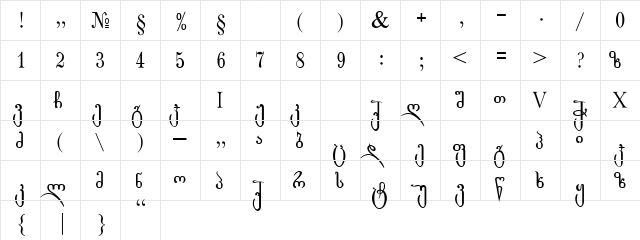
Rustaveli Nusx Normal
Rustaveli Nusx takes a measured approach to typography — its balanced proportions and neutral character make it a reliable workhorse for both digital and print work.